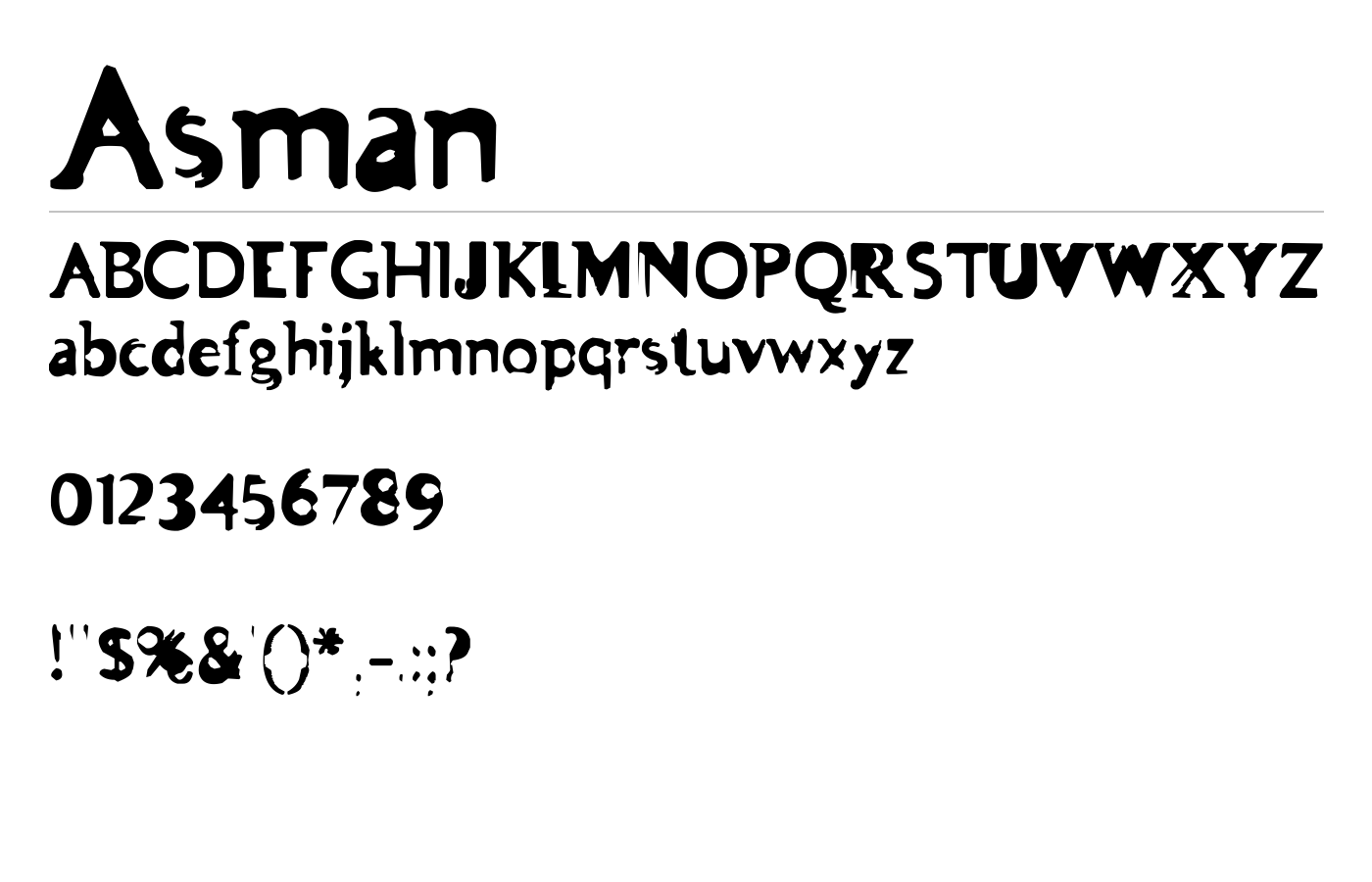
Asman is a bold, playful display font with a slightly irregular, hand-crafted feel that gives it a unique character. Its serif style mixes thick and thin strokes with quirky, uneven shapes, making it perfect for creative projects, fun branding, and eye-catching headlines where personality and individuality are key. This font works well in posters, logos, and editorial designs seeking a lively and artistic touch.
Asman Font
About Asman Font